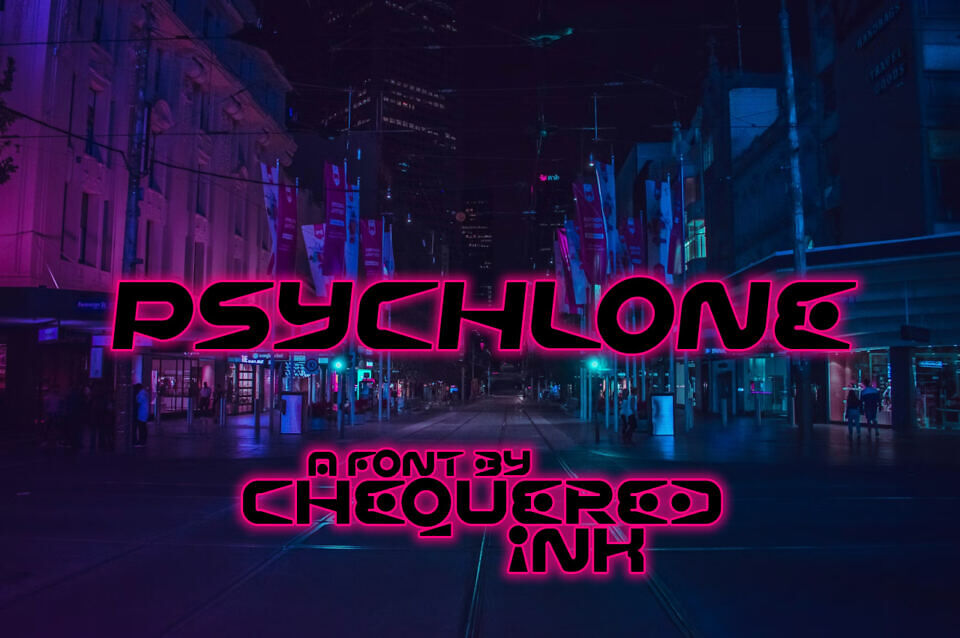
Psychlone is a bold and electrifying display font that blends futuristic energy with a rebellious edge. Its sharp angles, dynamic letterforms, and striking presence make it perfect for posters, gaming graphics, album covers, logos, and sci-fi-inspired designs.
Whether you’re creating high-impact branding or eye-catching headlines, Psychlone delivers a powerful visual statement with a modern cyberpunk attitude.